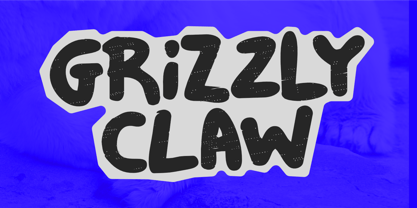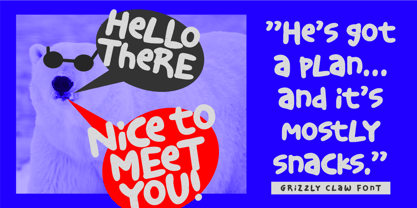
Grizzly Claw
La famille de polices Grizzly Claw a été conçue par Aldy Sidik et publiée par Epiclinez. Grizzly Claw contient 1 styles. En savoir plus sur cette famille
Grizzly Claw is a bold cartoon font with a playful attitude and wild charm. Designed as a display typeface with chunky letterforms and a cool textured finish, it's perfect for eye-catching projects that need fun and personality.
Whether you're working on a game title, movie poster, product packaging, or a bold logo design, Grizzly Claw brings energy and character to your work. This whimsical font is especially suited for kids’ projects, adventure-themed designs, and anything that needs a strong, friendly voice.
Add a bold bite of fun to your next project with Grizzly Claw – the ultimate fun cartoon display font for designers who like to play wild.